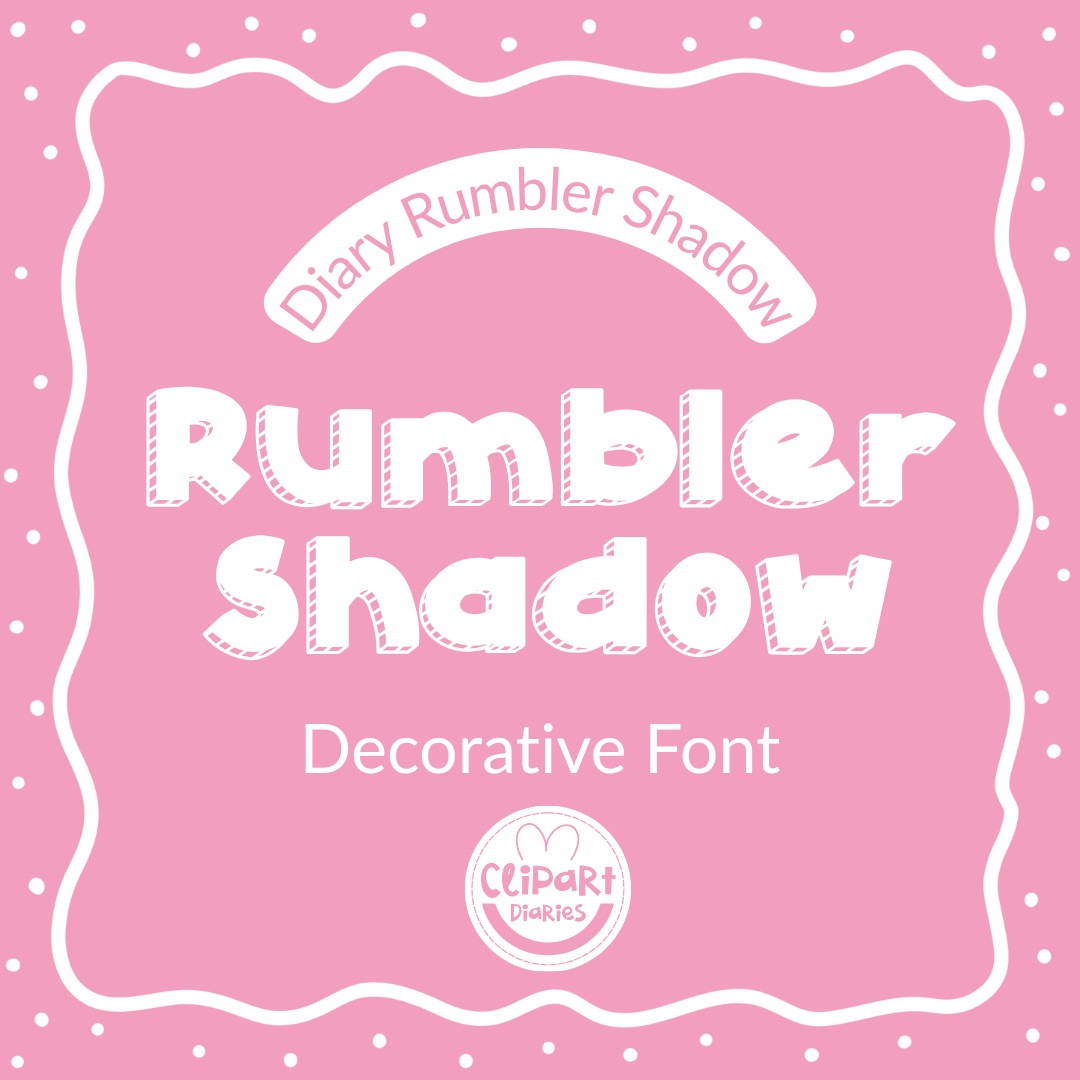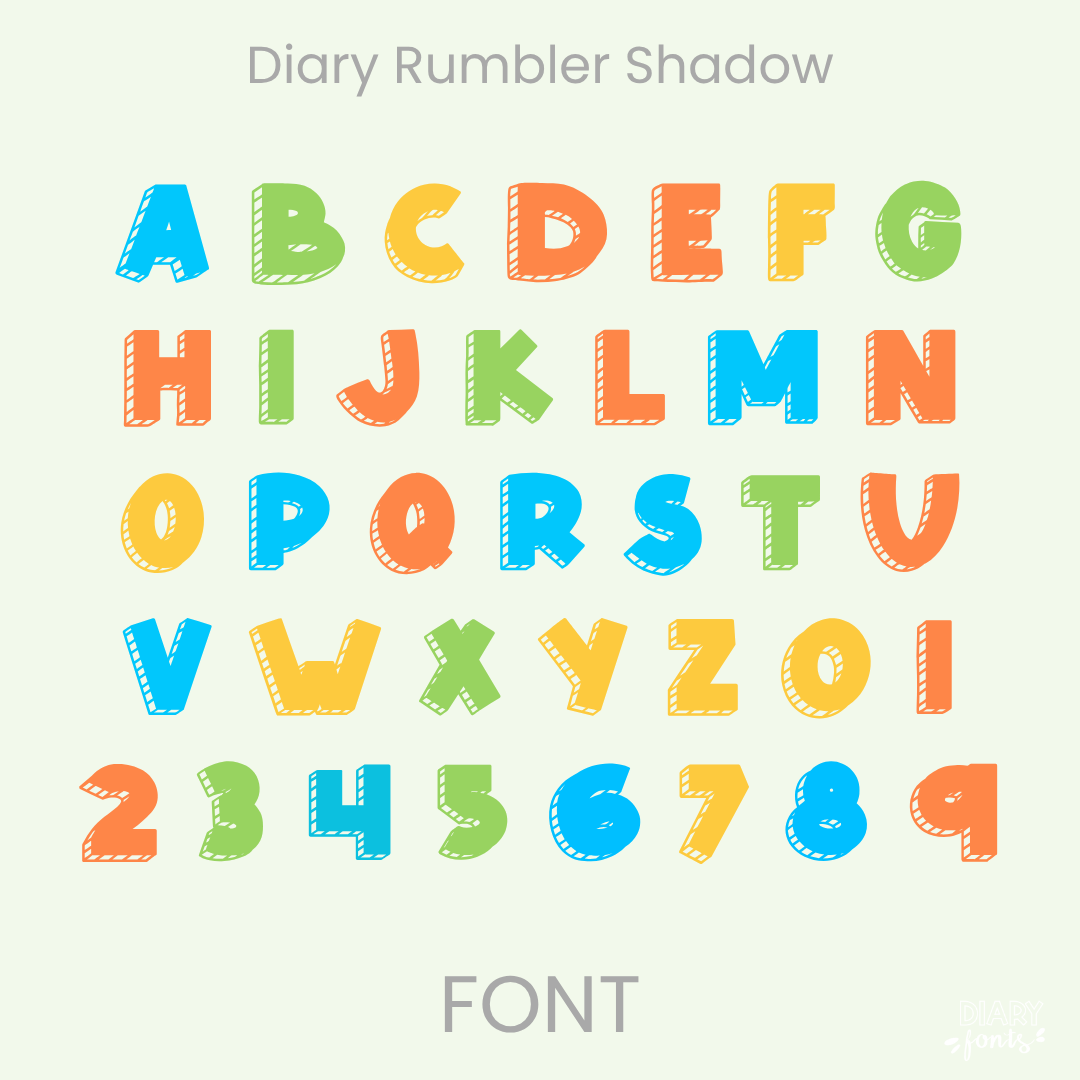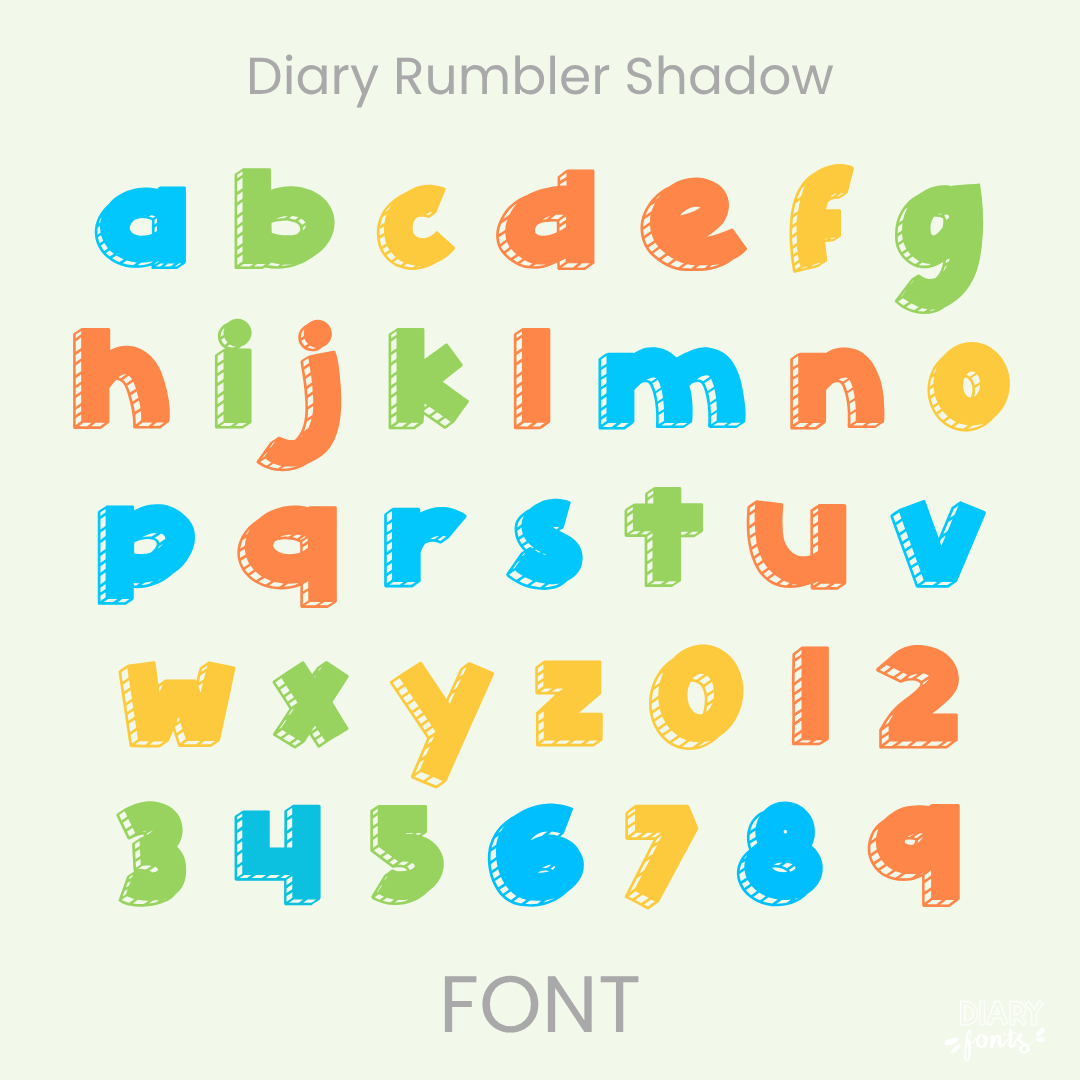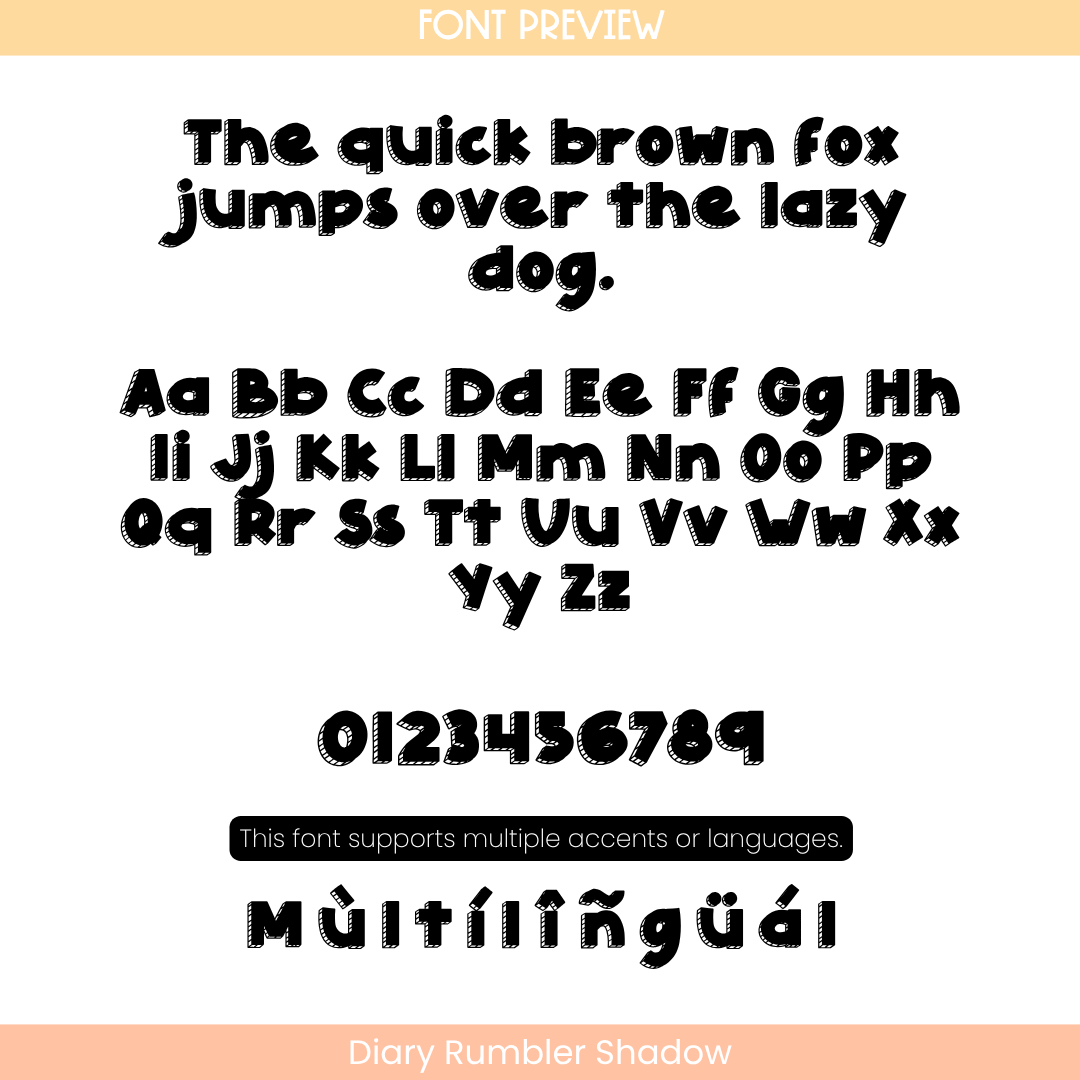
If you want to take your typography to the next level, Diary Rumbler Shadow is ready to make your layouts jump right off the page. This fun display font takes the super thick, heavy-weighted blocky lines of a favorite chunky print and wraps them in a hand-drawn, sketch-style shadow. With its delightful baseline bounce and textured shadow lines, it brings a massive dose of creative energy while staying completely clean, bold, and incredibly easy for your sweet students to read from across the room.
It is the absolute perfect choice for designing high-impact bulletin boards, standout presentation slide titles, subject covers, and classroom labels where you want your text to have a fun, dimensional look. Inside the download, you’ll get a full set of shadowed uppercase and lowercase letters, solid matching numbers, and multi-accent marks for complete multilingual support. It drops right into Canva, MS Office, or Adobe on your desktop, and pairs beautifully with Procreate and GoodNotes on your iPad. Whether you’re crafting weekly printables for your own sweet classroom or designing a bold new product line for your online teacher shop, this shadowed beauty adds a touch of confident, friendly style to your toolkit.